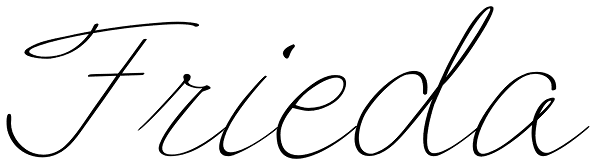
Frieda
Frieda is a handwritten calligraphy script equipped with contextual alternates features and ligature variations for a customised look. Just add "+" before the letter or manually choose the character from Glyph Palette. Authentic, chic, but also...
Frieda
Frieda Script